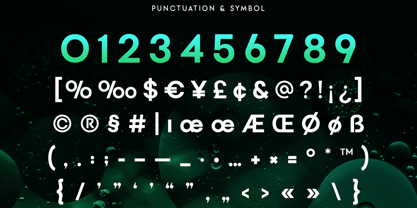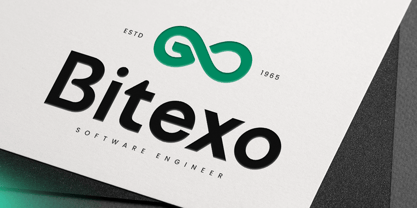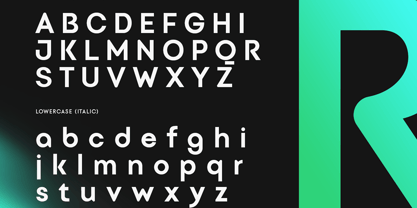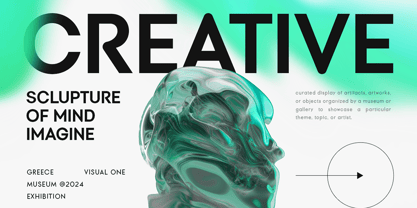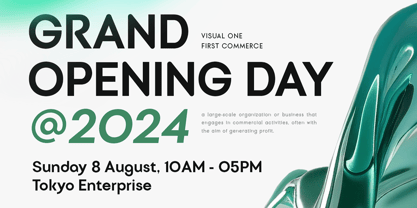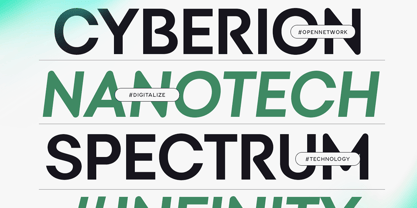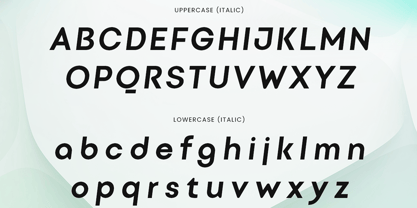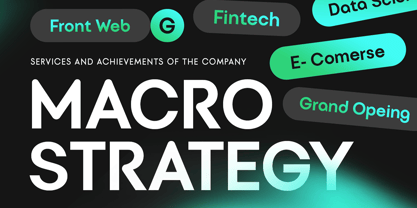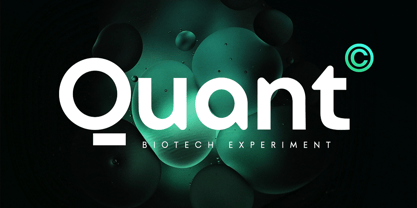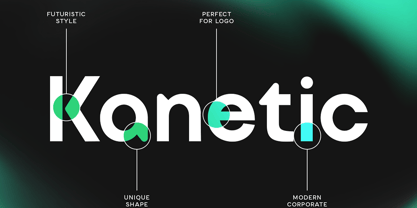
Darwaza
The Darwaza Font Family was designed by Olivia Love and published by Only Fonts. Darwaza contains 2 styles and family package options. More about this family
Darwaza – Modern Corporate Logo Font
Darwaza is a modern corporate logo font created for businesses that value professionalism, clarity, and timeless design. Inspired by contemporary architecture, clean geometric forms, and corporate branding, Darwaza features balanced letterforms with a refined minimalist style that communicates confidence, reliability, and innovation. Every character is carefully crafted to deliver a polished visual identity, making it an excellent choice for brands that want to establish a strong and trustworthy presence.
Perfect for corporate branding, technology companies, financial institutions, consulting firms, real estate businesses, legal services, architecture studios, startup companies, websites, presentations, business cards, product packaging, and professional marketing materials, Darwaza delivers exceptional readability and a sophisticated appearance across both print and digital media. Its clean structure allows logos and headlines to remain modern, memorable, and highly versatile.
Designed with flexibility in mind, Darwaza includes both Regular and Italic styles, giving designers greater creative freedom when developing distinctive logos, visual identities, and promotional materials. Whether you are launching a new company, refreshing an established brand, or creating professional corporate communications, Darwaza provides the balance of elegance, simplicity, and functionality needed to make a lasting impression.
With its timeless aesthetic and premium craftsmanship, Darwaza transforms ordinary typography into a confident branding element that reflects professionalism and modern business excellence. It is an essential addition to every designer's font collection for creating clean, sophisticated, and impactful corporate identities.
Darwaza Font Features:
• Modern corporate logo style
• Regular and Italic versions included
• Uppercase and lowercase letters
• Numerals, punctuation, and symbols
• Multilingual support
• Perfect for corporate branding, technology, finance, consulting, real estate, websites, and professional marketing materials
• Suitable for both print and digital projects